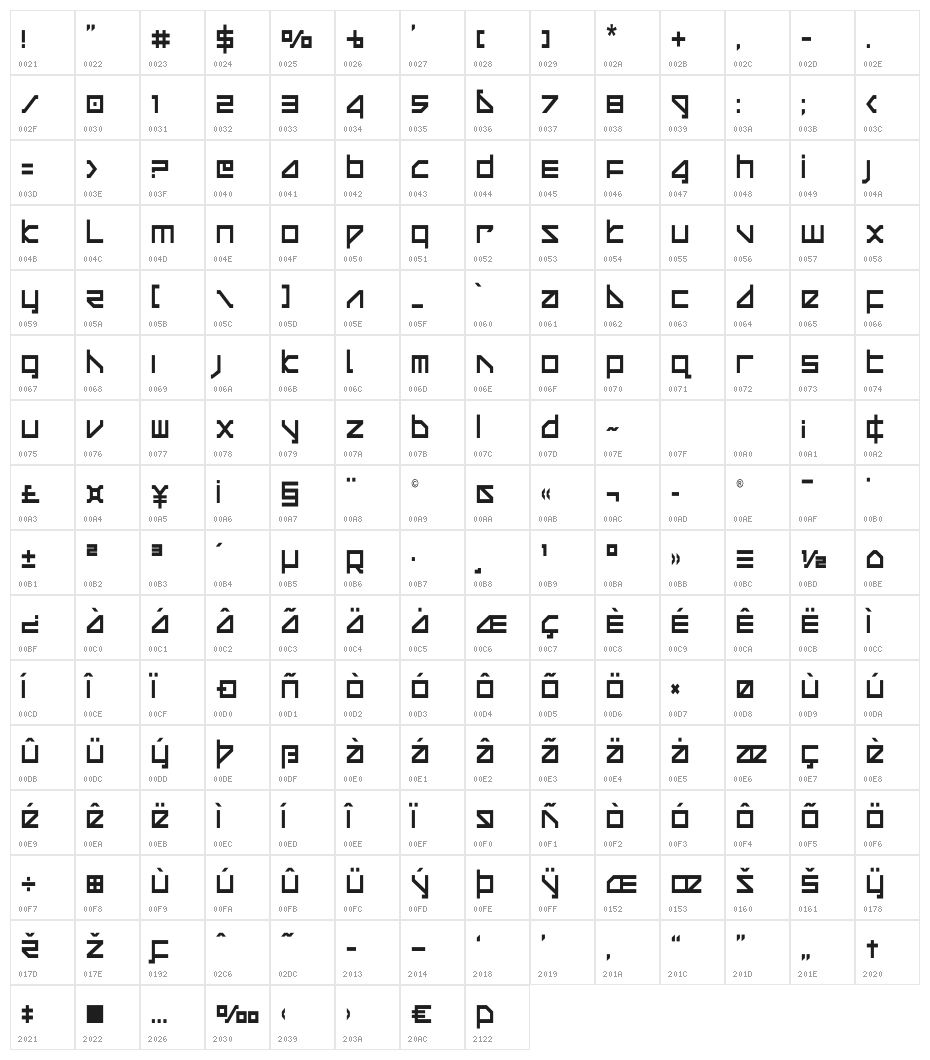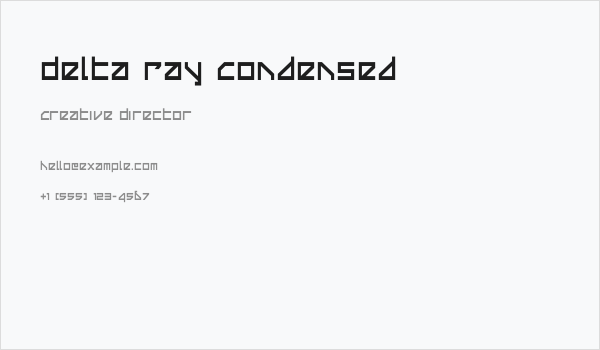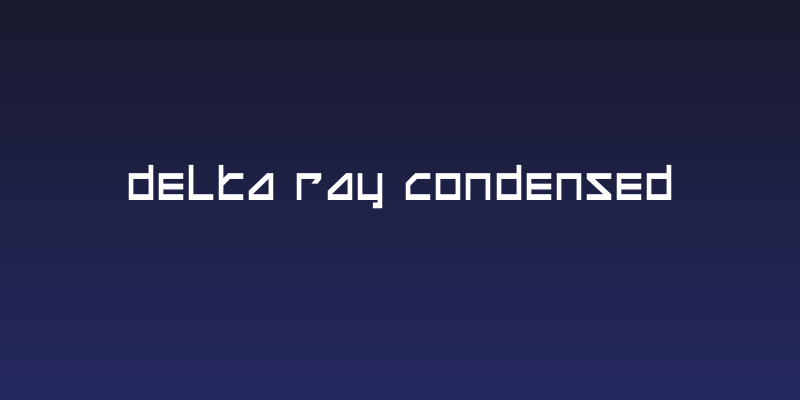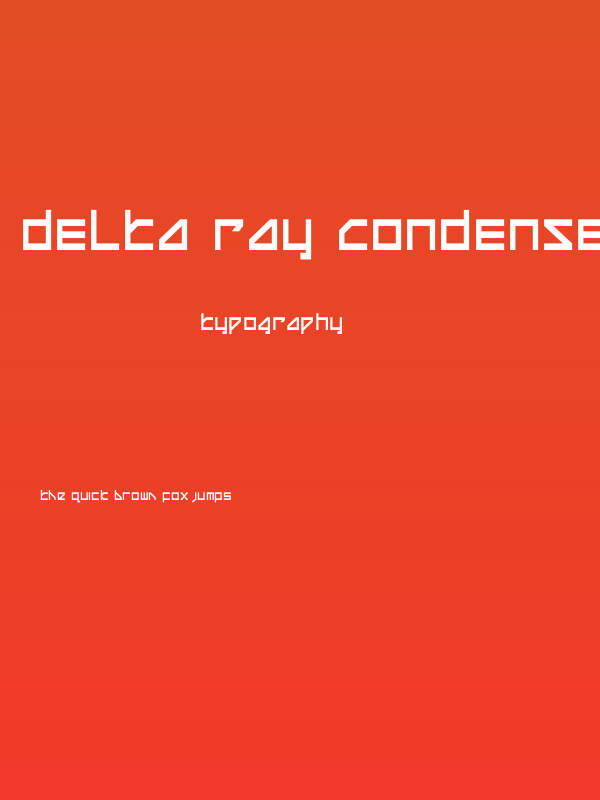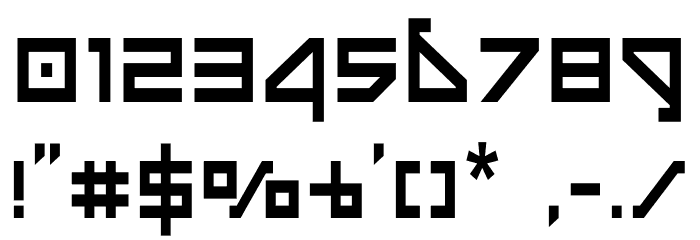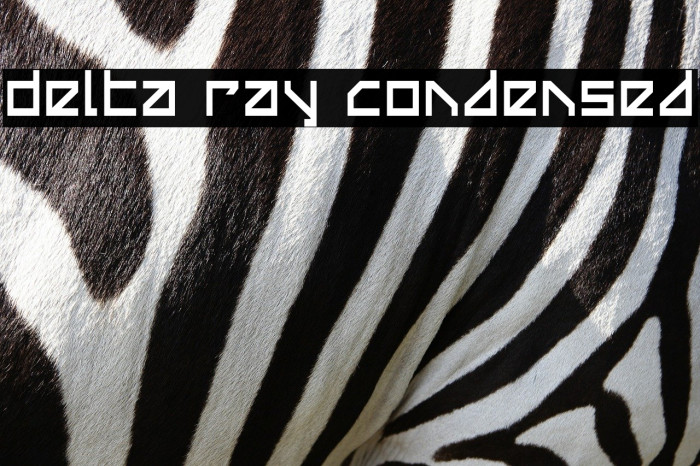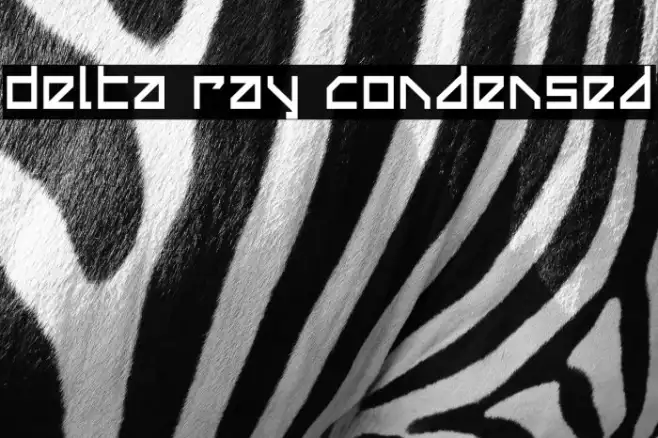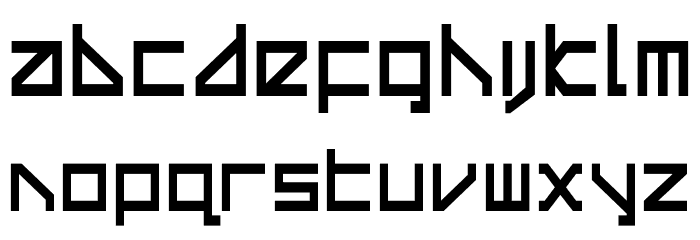
Delta Ray Condensed Font
Delta Ray Condensed Description
This font features a futuristic and geometric design with sharp angles and a condensed structure. The characters are uniform in height, creating a cohesive and streamlined appearance. The uppercase and lowercase letters share similar design elements, enhancing the font's consistency. The numerals are distinct and maintain the geometric theme, while the special characters complement the overall style. The font's bold and angular nature makes it stand out, ideal for projects that require a modern and edgy look.
| Proposed Projects | Ideal for sci-fi themed designs, technology branding, video game interfaces, and modern posters. |